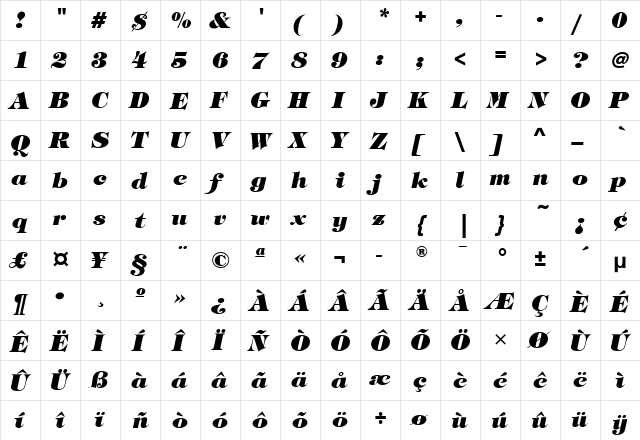
TiffanyMdITC Heavy Italic Font Preview
TiffanyMdITC Heavy Italic
TiffanyMdITC Heavy Italic Font Details
| Style | Heavy Italic |
| Foundry | E+F Designstudios. ITC Tiffany is a registered trademark of International Typeface Corporation |
Design Context for TiffanyMdITC Typeface
TiffanyMdITC takes a measured approach to typography — its balanced proportions and neutral character make it a reliable workhorse for both digital and print work. The dynamic lean of this cut emphasises speed and emphasis in any layout.